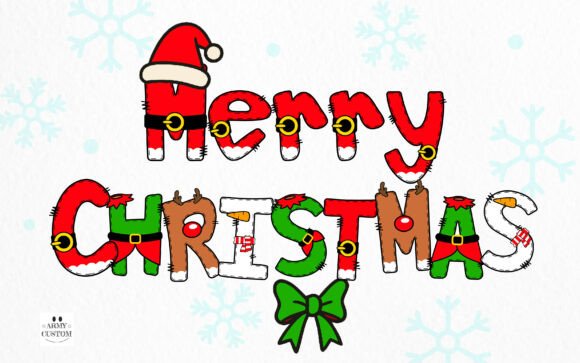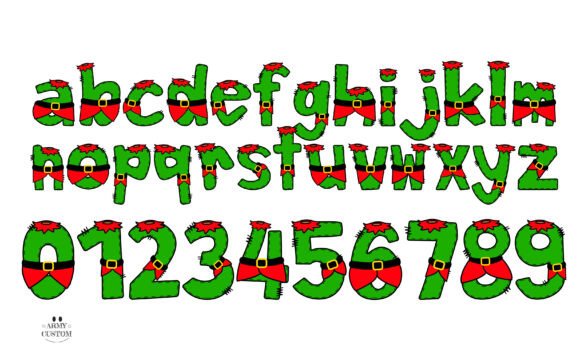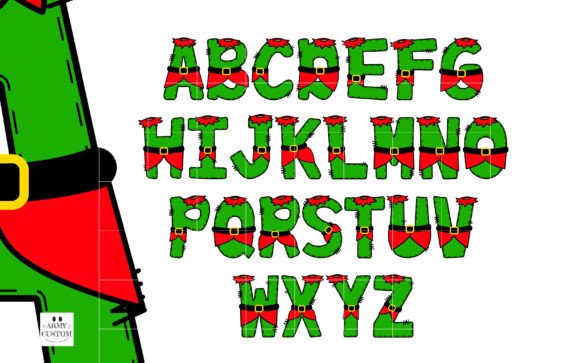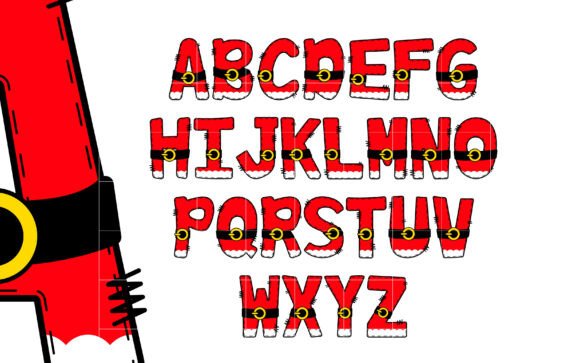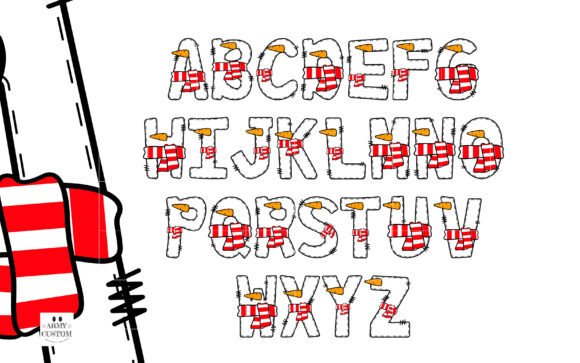
Introducing the Christmas Bundle Font: A Whimsical Addition to Your Holiday Design Toolkit
Are you looking for a font that captures the essence of the holiday season? Look no further than the Christmas Bundle Font, a 4-styled Santa, Elf, Reindeer, Snowman color font that’s sure to bring a dash of merriment to your design projects. This charming font is imbued with a sense of whimsy, making it an ideal choice for creating vibrant holiday decorations, greeting cards, and more.
A Playful and Jovial Font for the Holiday Season
The Christmas Bundle Font features four unique styles, each showcasing a different holiday character, including Santa, Elf, Reindeer, and Snowman. The font’s playful and jovial style makes it perfect for adding a touch of festive fun to any design project. Whether you’re creating holiday decorations, party invitations, or social media graphics, this font is sure to bring a smile to your audience’s faces.
Inspired by the Adorable Antics of Santa’s Helpers
This delightful font is inspired by the adorable antics of Santa’s helpers, bringing the magic of the holiday season to life. Every letter spelled out with the Christmas Bundle Font becomes a joyous celebration, perfect for capturing the spirit of the holiday season. From festive holly to jolly snowmen, this font is sure to evoke the sense of wonder and enchantment that comes with the holiday season.
Whether you’re a designer, crafter, or maker, the Christmas Bundle Font is a must-have addition to your holiday design toolkit. With its playful and jovial style, this font is perfect for creating a wide range of holiday-themed designs, from festive decorations to holiday cards and gift tags. The font’s compatibility with Adobe Photoshop and Illustrator makes it an ideal choice for graphic designers, while its compatibility with Cricut Design Space and other cutting machines makes it perfect for crafters and makers.
Tips for Using the Christmas Bundle Font
Here are a few tips for getting the most out of the Christmas Bundle Font:
- Use the font to create festive holiday decorations, such as garlands, banners, and signs.
- Add a touch of holiday cheer to your social media graphics and posts.
- Use the font to create holiday cards, gift tags, and other paper crafts.
- Experiment with different font styles and colors to create a unique look.
The Christmas Bundle Font is a whimsical and playful addition to any holiday design toolkit. With its four unique styles, adorable holiday characters, and compatibility with a range of design software, this font is perfect for designers, crafters, and makers. Whether you’re creating festive decorations, holiday cards, or social media graphics, this font is sure to bring a dash of merriment and holiday cheer to your designs.